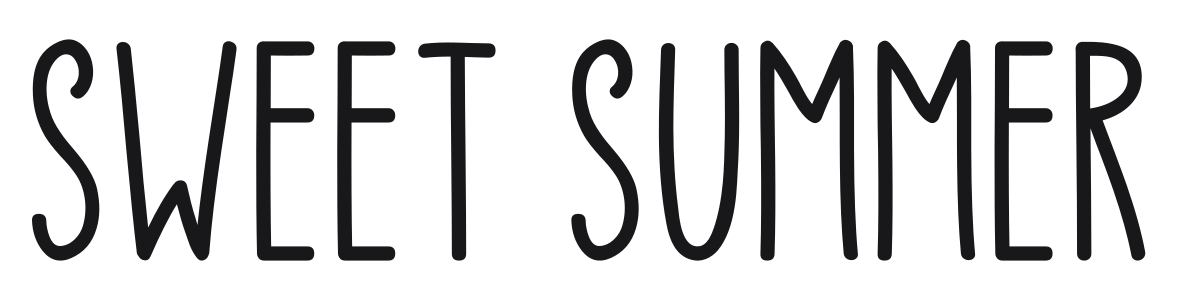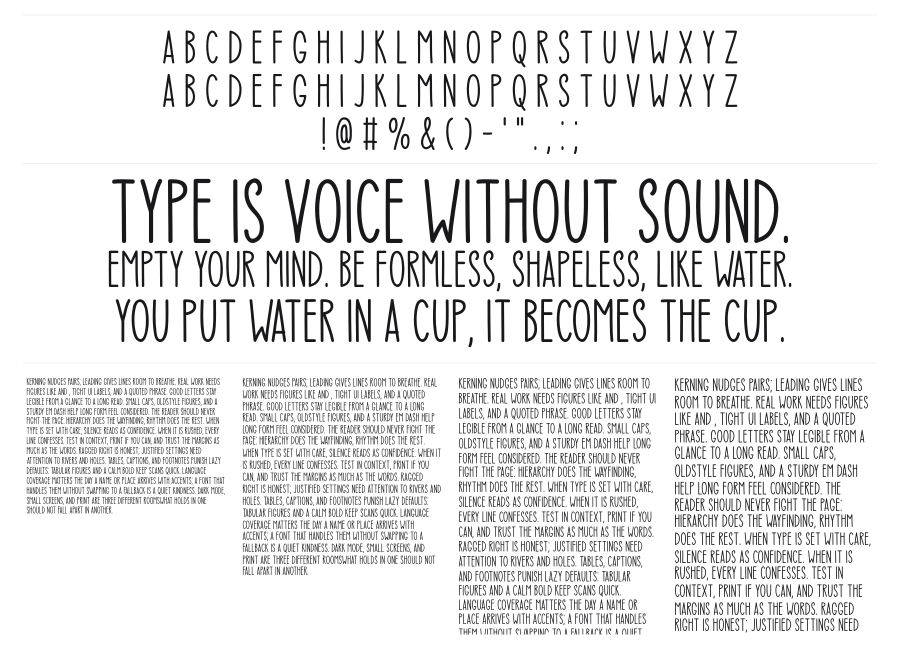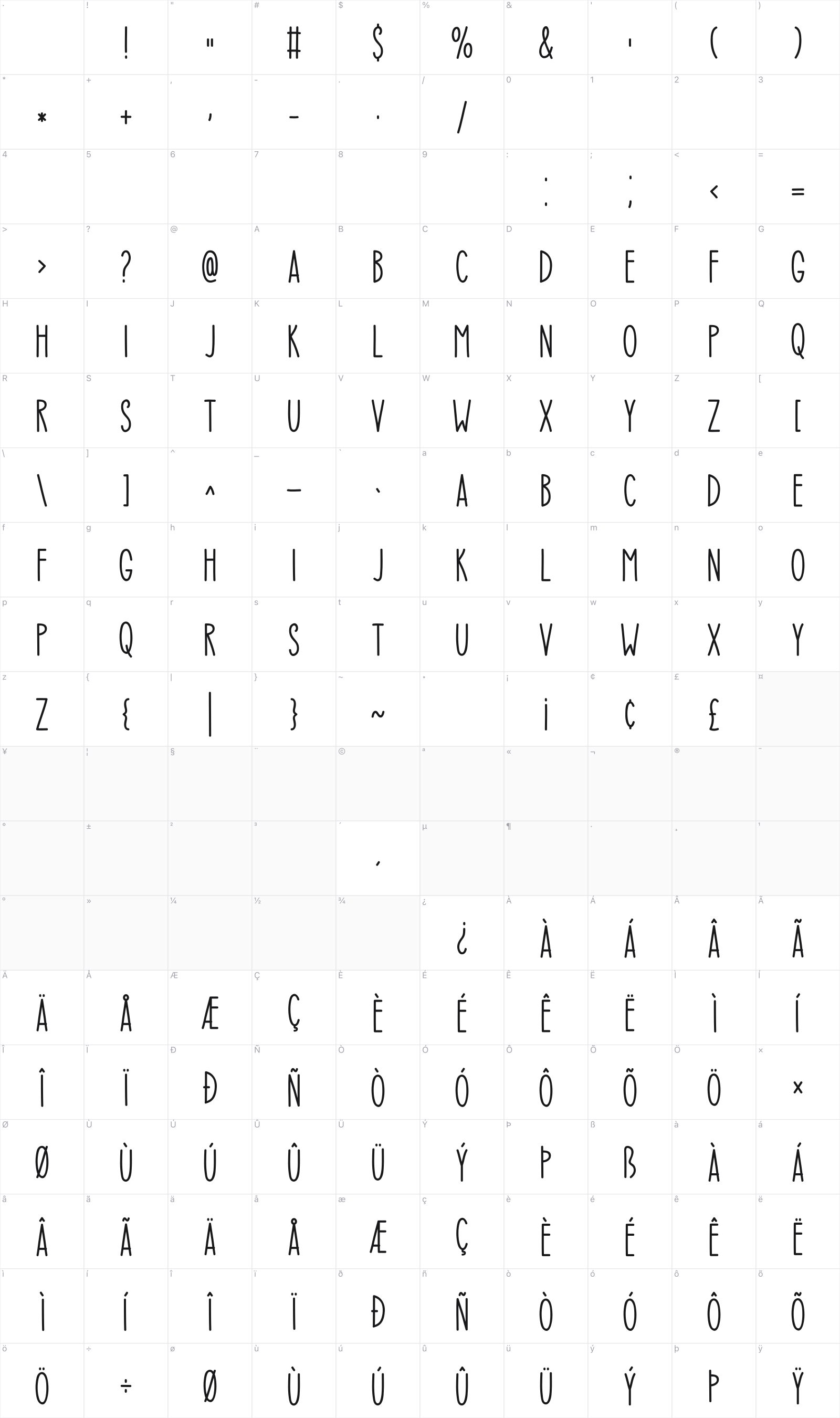
Sweet Summer
Sweet Summer is a tall, condensed display sans with a hand-lettered personality baked into otherwise clean strokes. The subtle irregularities in the stems and rounded terminals give it a warm, approachable feel without tipping into full handwriting territory. It works well for signage, packaging, and seasonal branding where a touch of character matters.